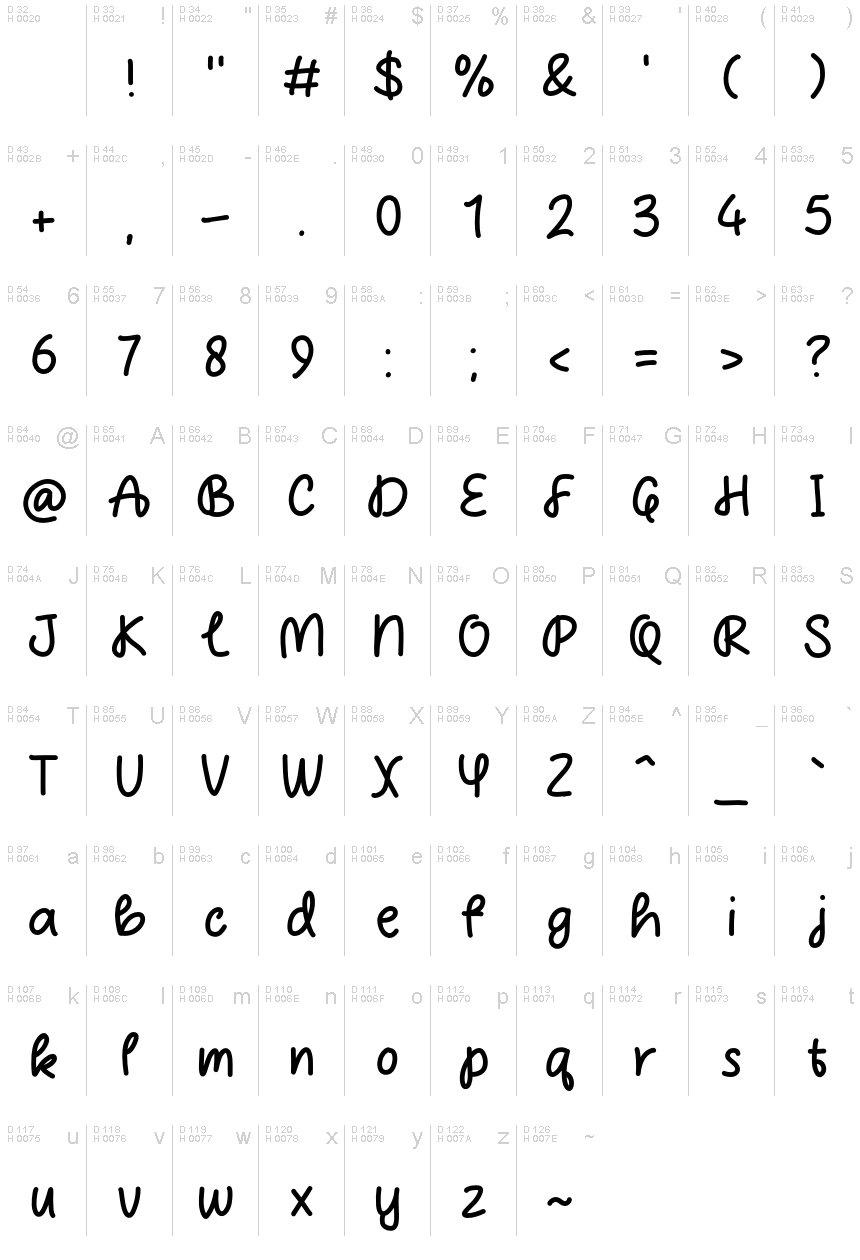
Dialog Lisan
Dialog Lisan font is designed by MJType. It's a beautiful handwritten font, with an informal style that feels casual and playful. It has smooth curves and a lot of styles that work together to feel very nice! It's perfect for branding projects, Logo design, Clothing Branding, product packaging, or just as a stylish text overlay to any background image.
Use this font for greeting cards, social media posts, or invitations. It’s just the thing you need when creating appealing posters and brochures because it is memorable but still readable from close up or long distances! You can also use it on different designs like personalized gifts and activities books—all sorts of things really!